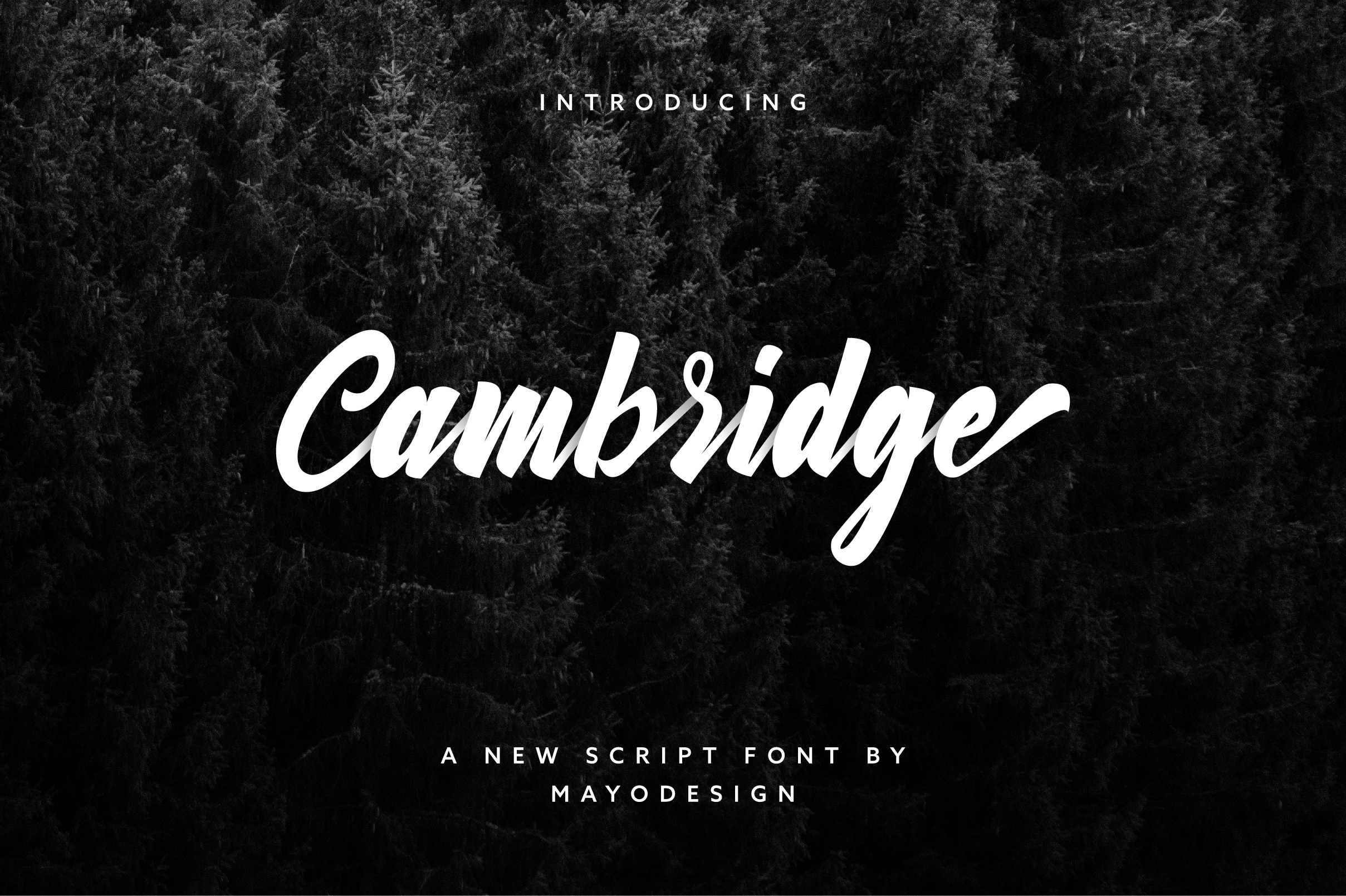
Cambridge Script Font
Designed by Mayofont
About Cambridge Script
Cambridge is a calligraphy script font perfect for logotypes, apparel, invitations, branding, packaging, advertising, etc. This font is PUA encoded, which means you can access all of the glyphs and swashes with ease